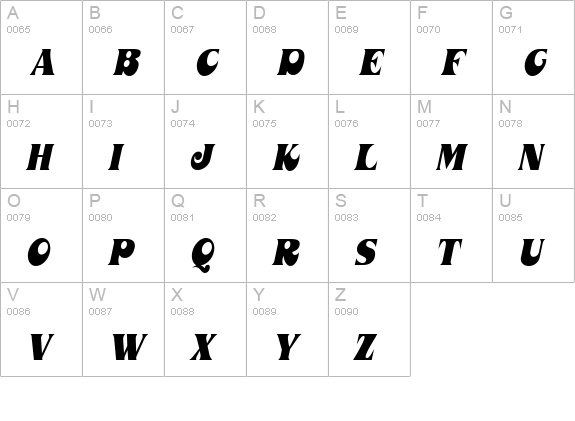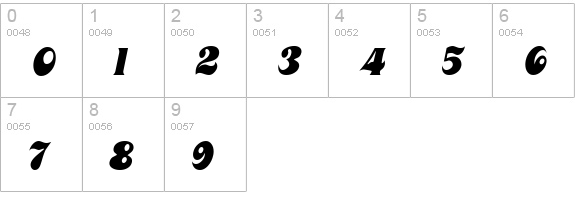
Mahaney Italic Font Details
Mahaney Italic is a distinctive, italic variant in the Mahaney typeface family \xE2\x80\x94 well suited to design and typography projects.
Introducing Mahaney Italic, a stunning and versatile font that effortlessly combines elegance with a touch of modernity. With its sleek and slanted design, Mahaney Italic adds a unique flair to any project, making it perfect for both professional and creative endeavors. This font boasts an exquisite balance between thin and thick strokes, providing a harmonious flow that captures attention and adds a touch of sophistication to any text. Its stylish and graceful curves lend a sense of fluidity and movement, making Mahaney Italic an ideal choice for logos, branding, invitations, headings, and more. But the best part? Mahaney Italic is available for free! That's right, you can download this exceptional font at FontsMarket.com without breaking the bank. Whether you're a designer, entrepreneur, or simply someone who appreciates the power of beautiful typography, Mahaney Italic is the perfect addition to your font collection. So why wait? Take advantage of this outstanding offer and elevate your designs with the timeless elegance of Mahaney Italic. Download it for free today at FontsMarket.com and let your creativity soar.